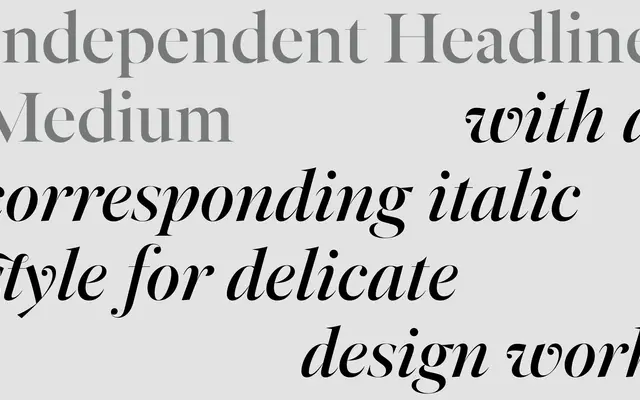
Independent Headline
Independent Headline specimen from A2-Type
A display serif cut designed for The Independent newspaper in 2013, used at the masthead and across large-scale print and digital headlines.
Designed as part of a wider system of interconnected typefaces for The Independent newspaper, this headline cut shares proportions and structure with the text and sans siblings but is drawn specifically for display use. The family earned a D&AD Yellow Pencil in 2014 and the Typeface Design prize at the Tokyo Type Directors Club in 2015. Available in Medium and Medium Italic, it suits editorial work where hierarchy and brand consistency across print and digital are both required.
A dedicated headline cut of the Independent serif family, designed for large display settings including the newspaper's masthead; shares structural proportions with the text cuts but is optimised for impact at size.